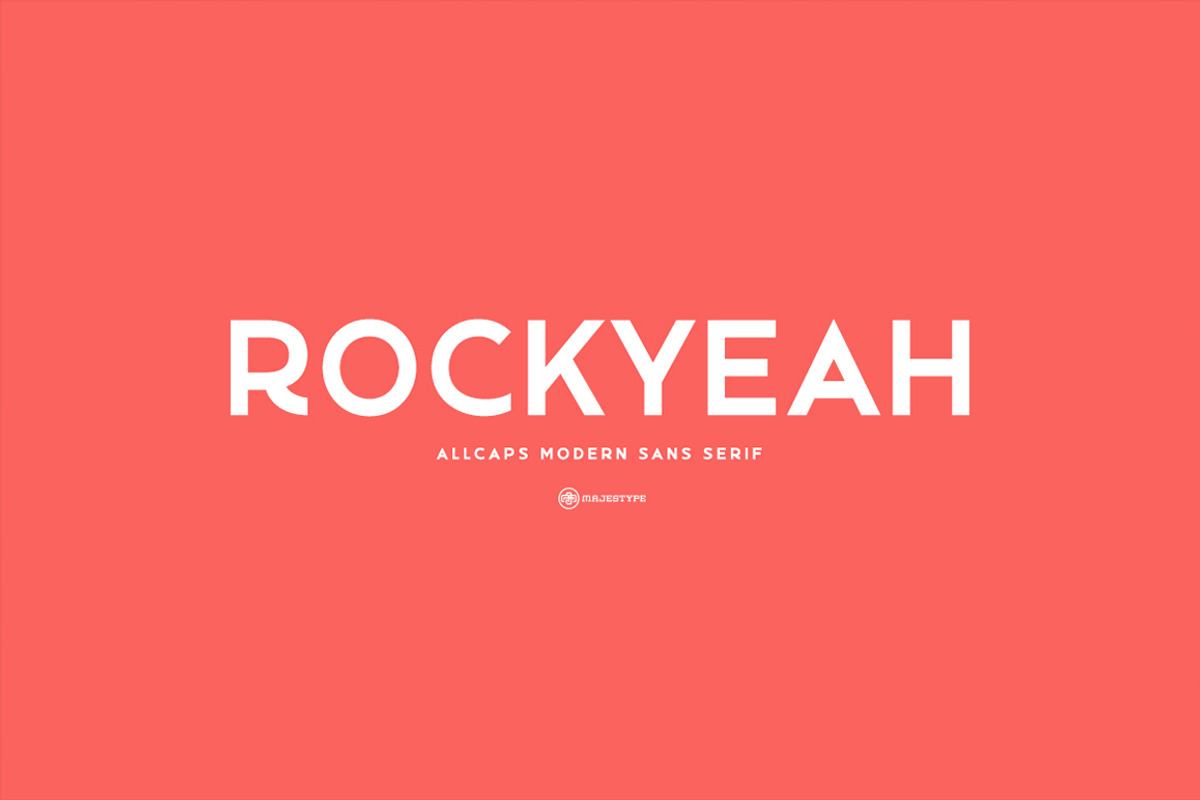
Rockyeah Sans Modern Font Free Download is a bold and sleek sans-serif typeface designed to make a statement. With its clean lines, geometric precision, and contemporary feel, this font is perfect for branding, headlines, social media posts, logos, and modern design projects that demand attention.
Whether you’re working on a tech website, creating an advertising campaign, or building a minimalist brand, Rockyeah Sans Modern Font Free Download delivers clarity and modernity with an edge.
Its versatile design works well in both large and small sizes, ensuring excellent readability while maintaining a stylish, polished appearance.